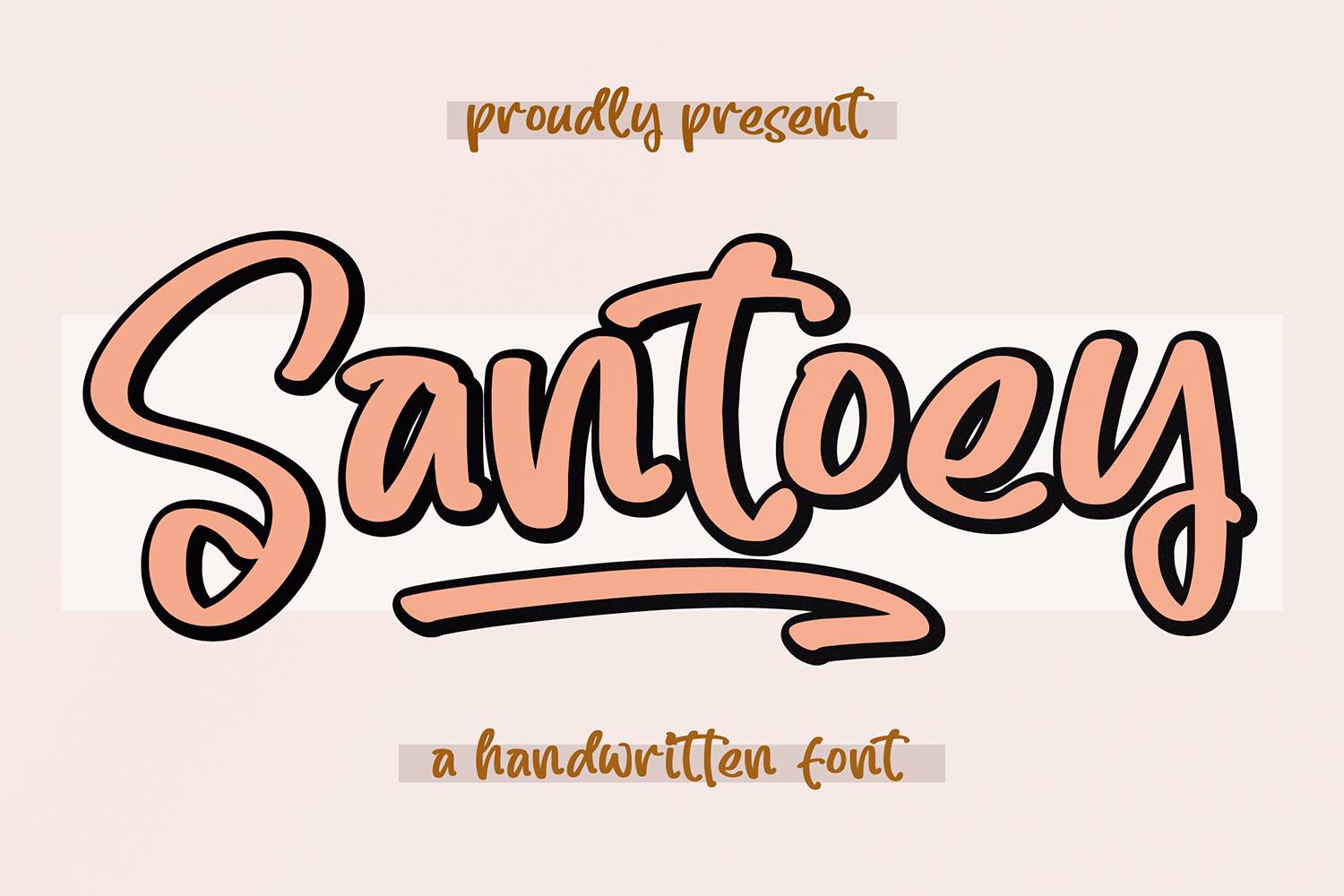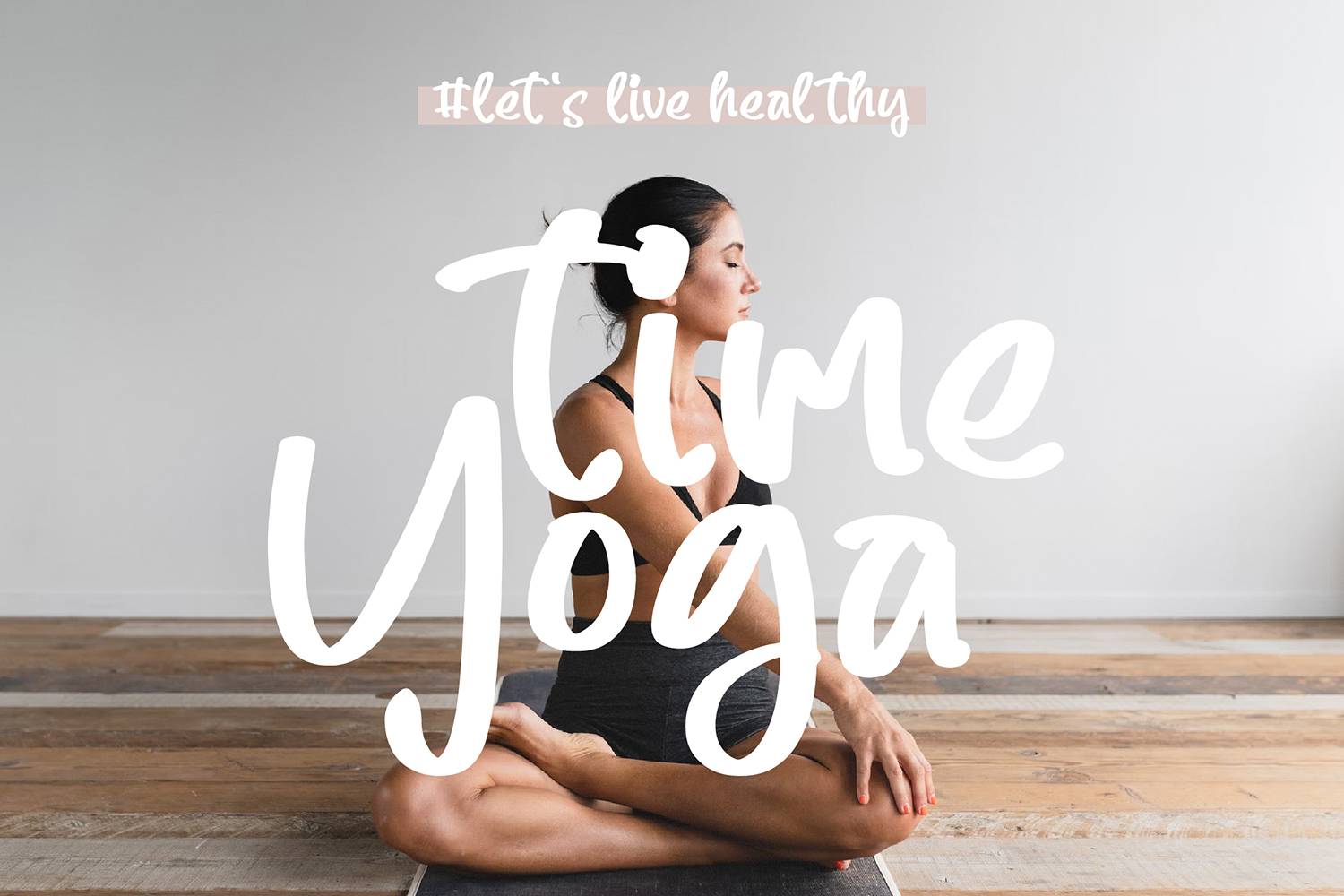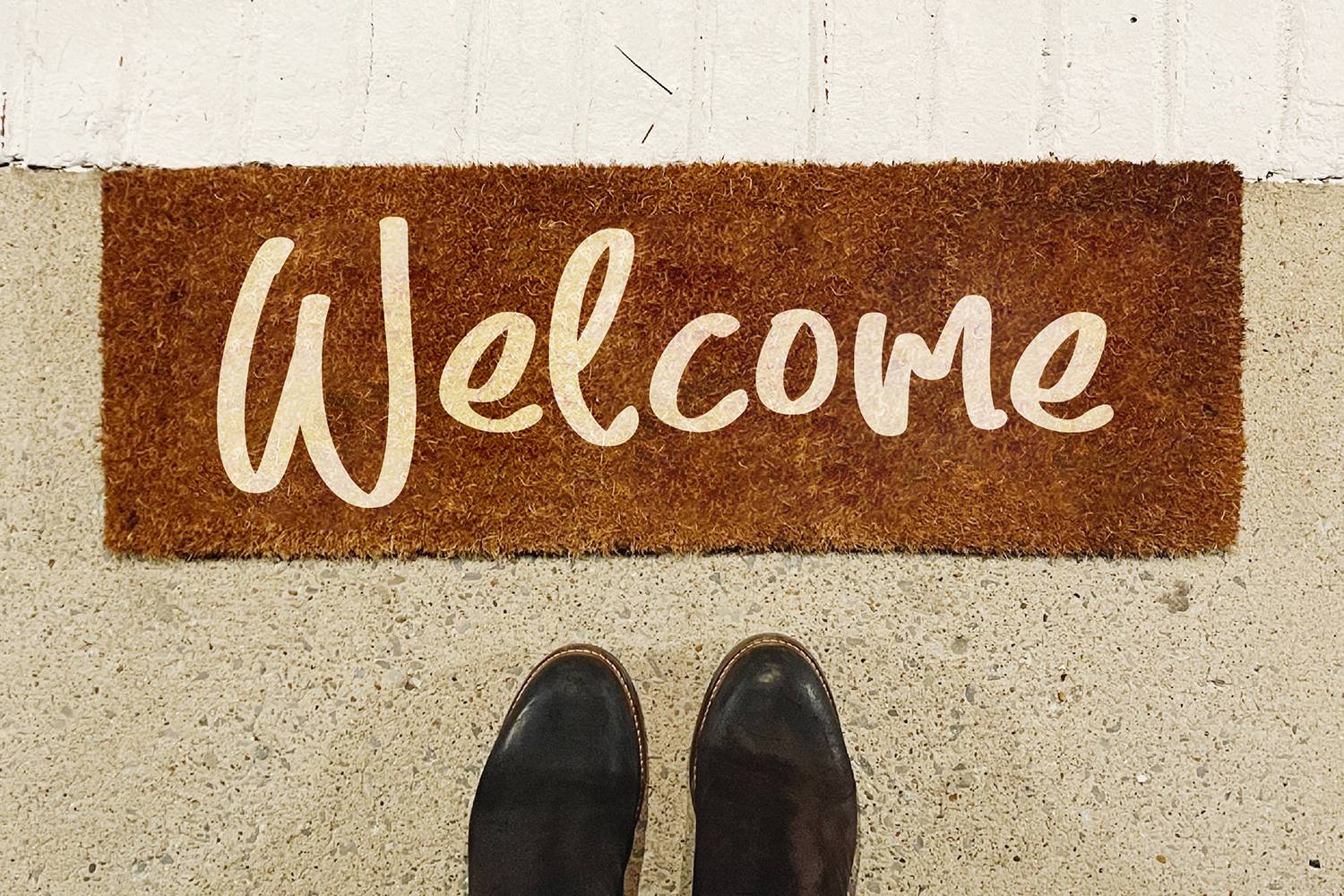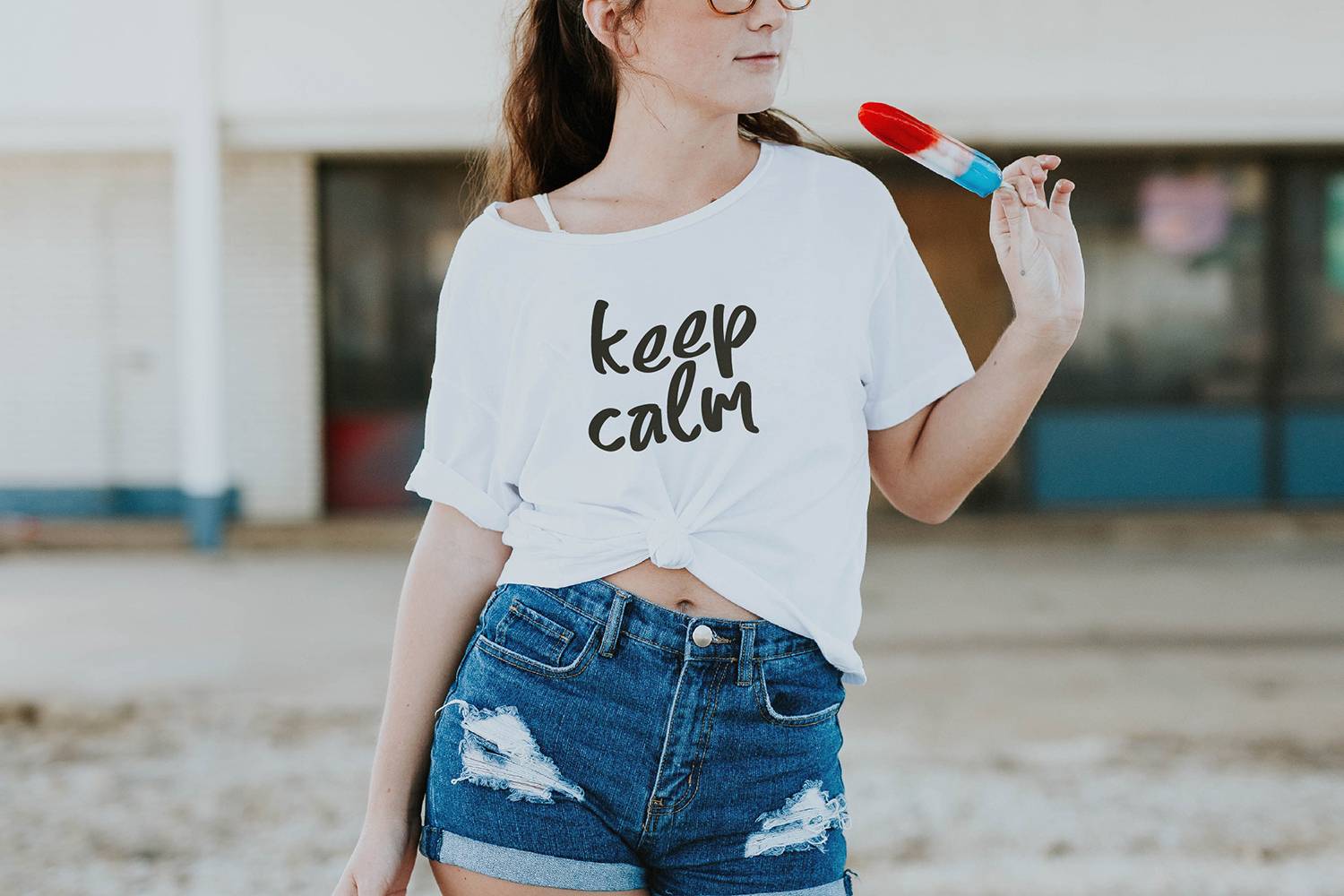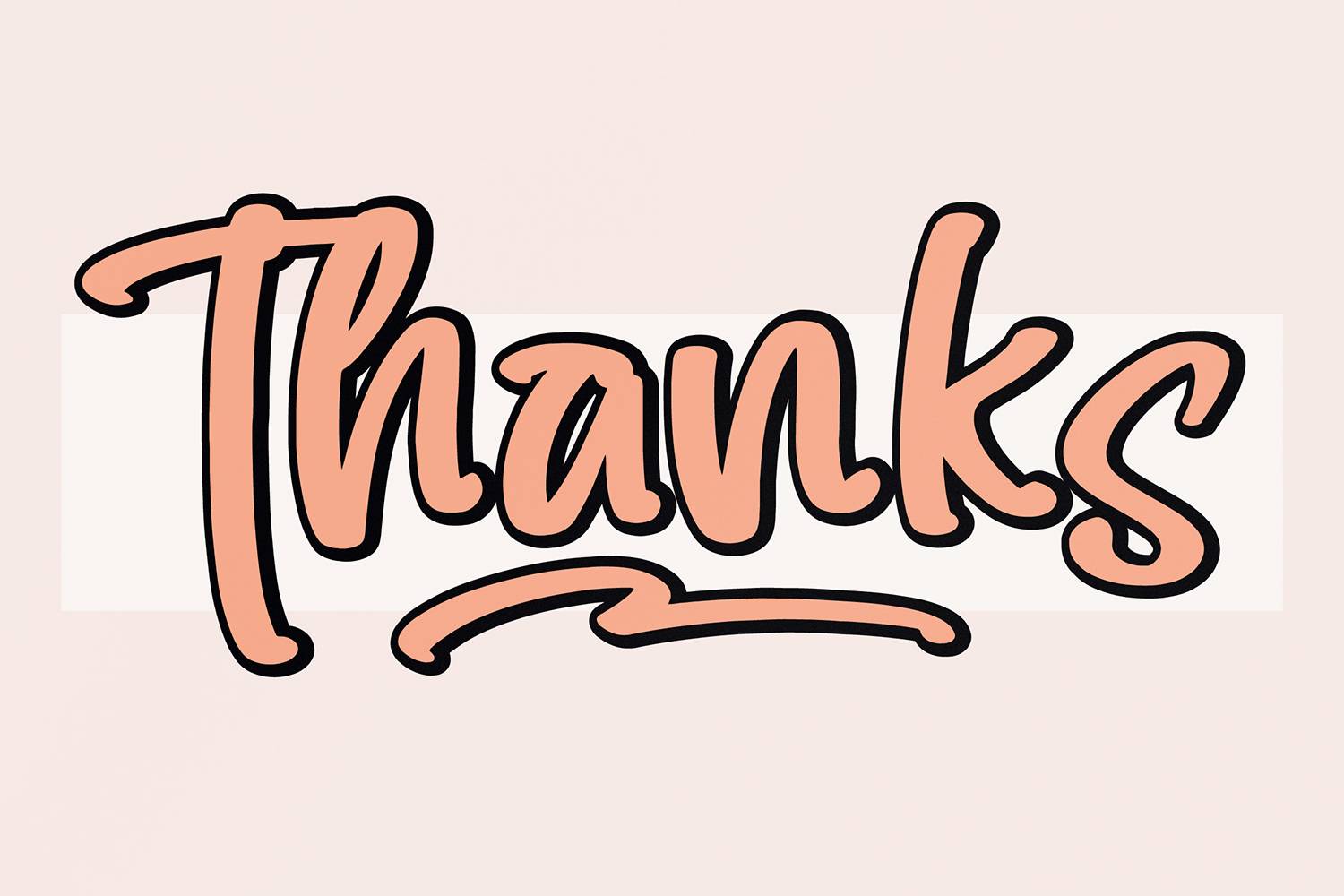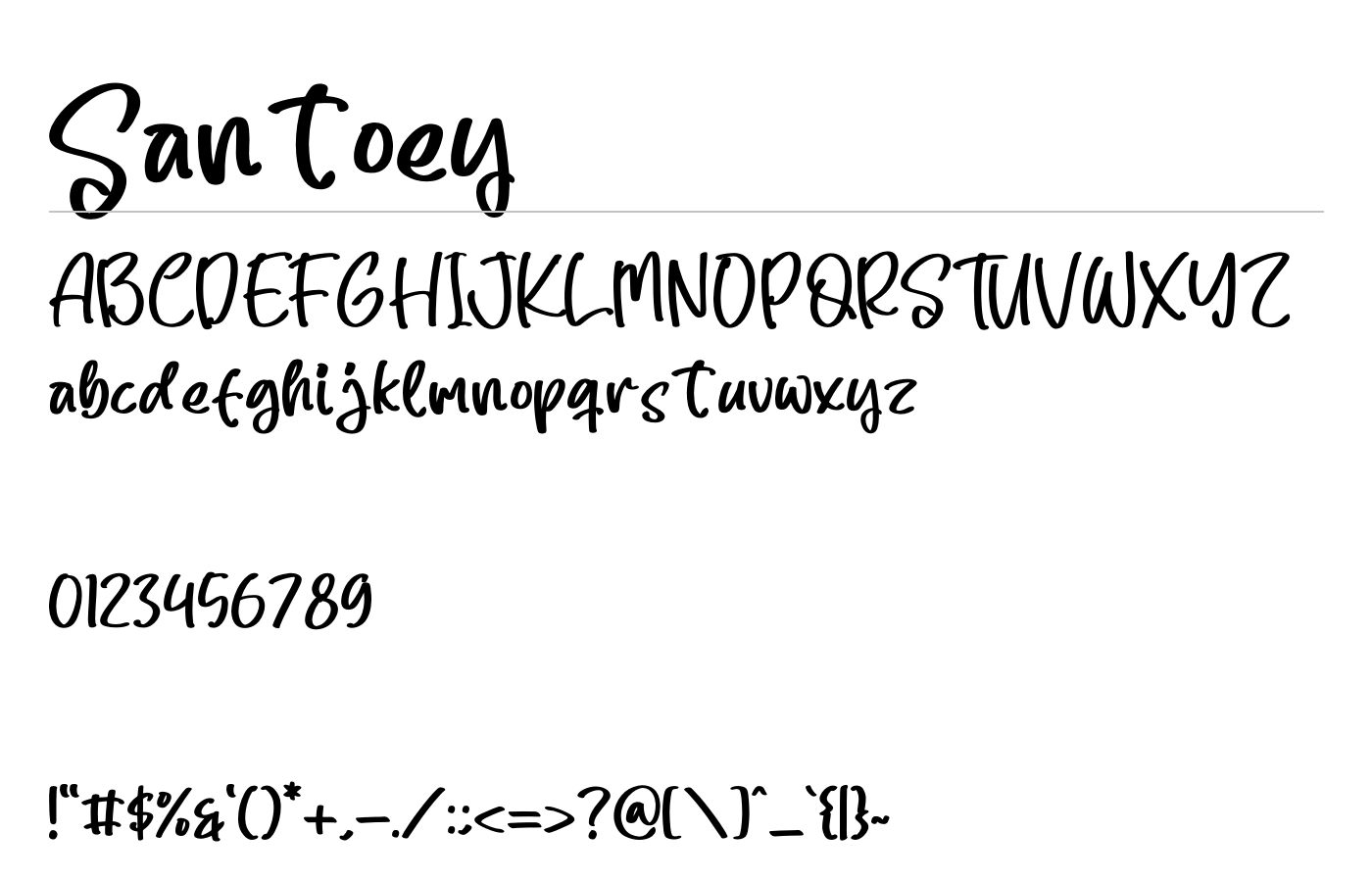
Santoey is a playful, hand-drawn script font with a lively and casual feel, featuring smooth, rounded strokes and varied letterforms that give it a friendly, approachable personality. Its slightly irregular shapes and moderate contrast make it ideal for creative projects, informal branding, or packaging that seeks a personal, handmade touch. This font works well in headlines, logos, and invitations, bringing warmth and individuality to any design.
Santoey Font